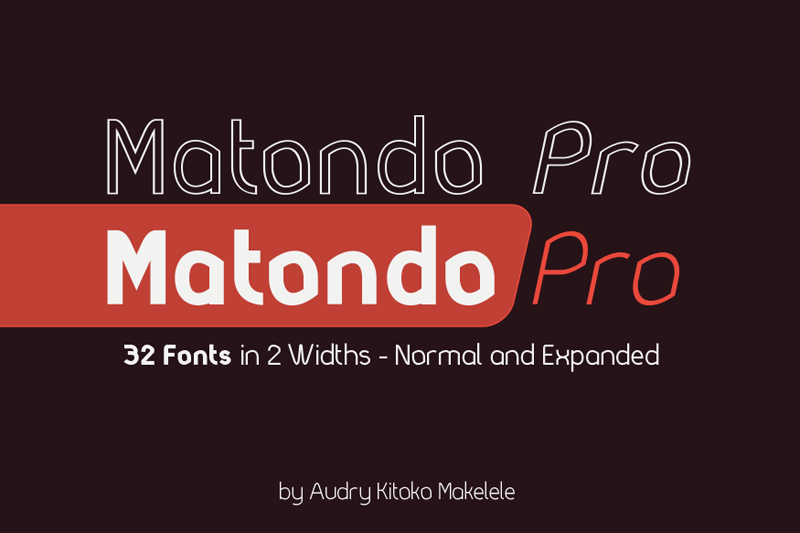
The Matondo Pro Family is a marvelous, elegantly designed font family. This sans serif doubles as a display font, because of it�s unique shapes. The Matondo Pro font family is guaranteed to make your design stand out from the crowd, and leave a lasting impression. For commercial use, please purchase a license here : https://www.creativefabrica.com/product/matondo-pro/ref/69549/ https://www.creativefabrica.com/product/matondo-pro-1/ref/69549/ |